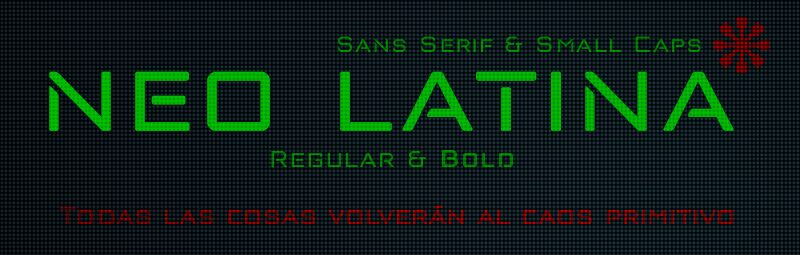
Neo Latina is a classic sans serif typography in small caps of square proportions and rectilinear character with the ends of the rounded horns and a semi-stencil design that gives a futuristic aspect and of science fiction.
Neo Latina is the right heiress of geometric fonts from the early 20th century inspired by the Bauhaus school and is specially designed for use in any size for both screen and print.
Neo Latina is a very versatile typography for graphic design, you can use it in advertising posters, video games, film titles, logos, editorial design, etc.
Includes the Bitcoin symbol: b# (ligatures)
Neo Latina is a classic typeface versalitas sans serif of square proportion and rectilinear character with the ends of rounded poles and a semi-stencil design that gives it a futuristic and sci-fi look.
- Neo Latina is the right heiress of geometric fonts from the early 20th century inspired by the Bauhaus school and is specially designed for use in small sizes for screen and printing